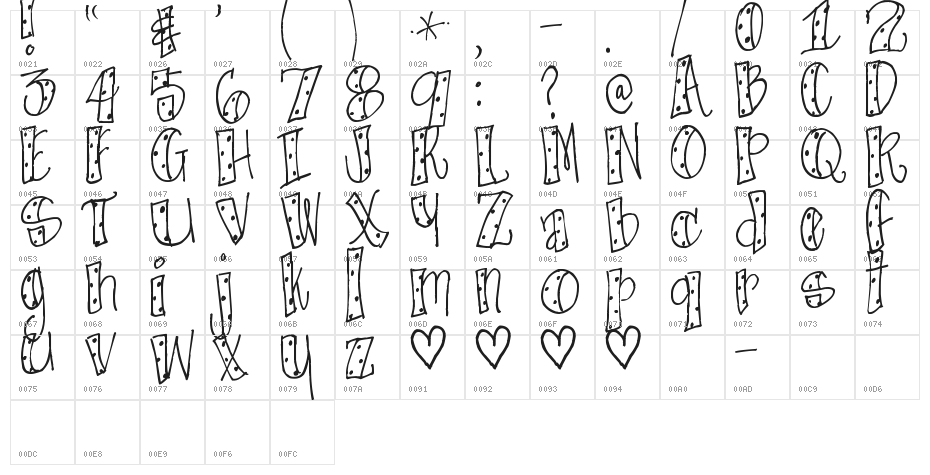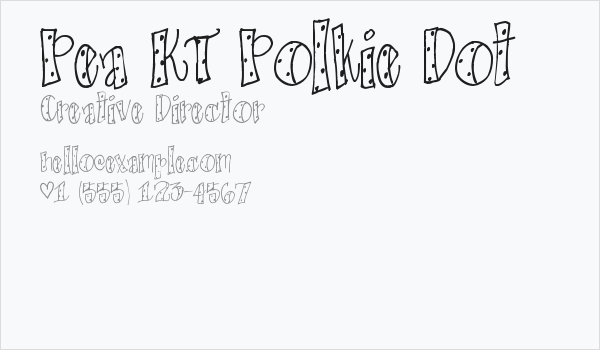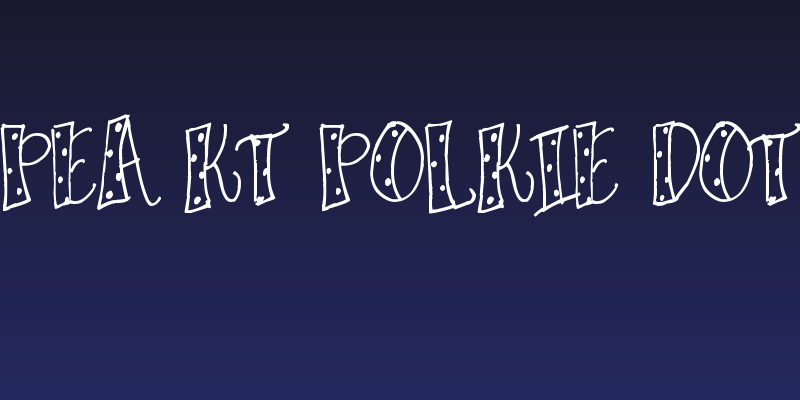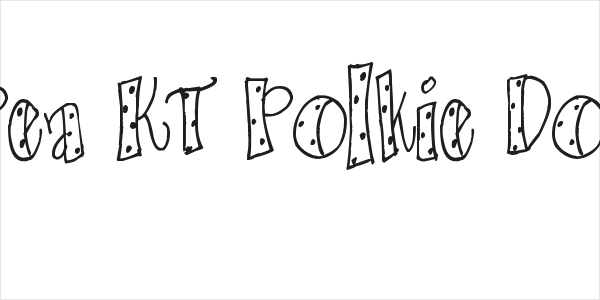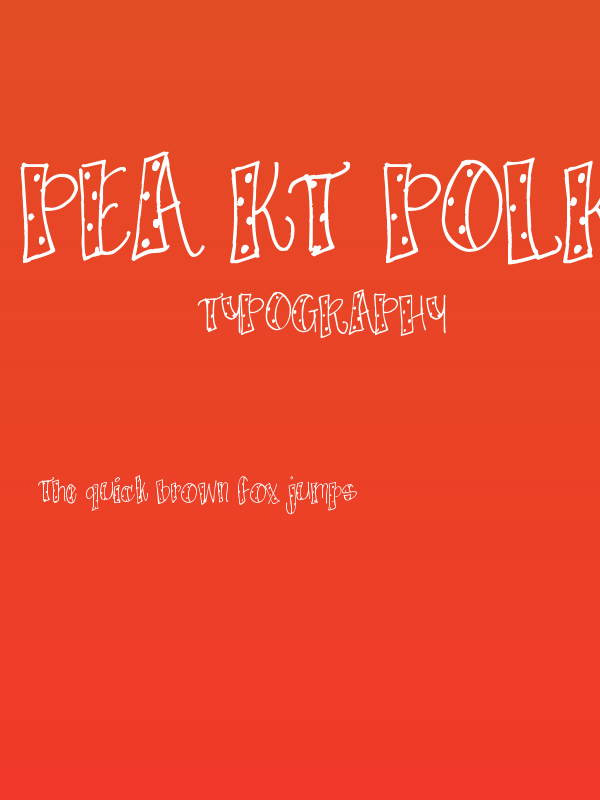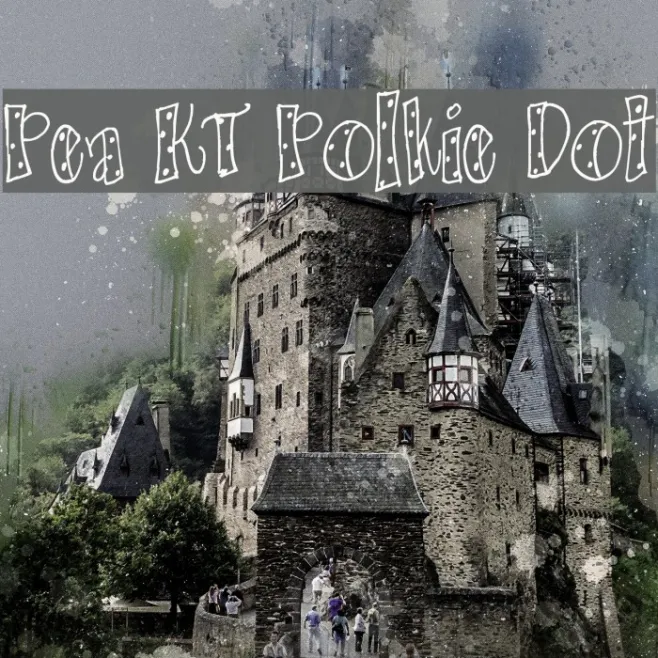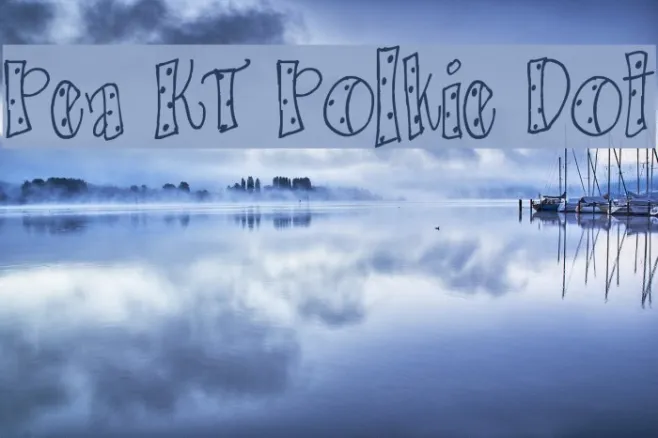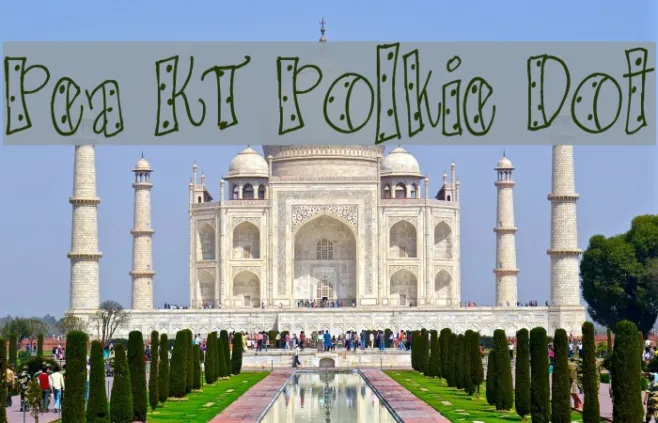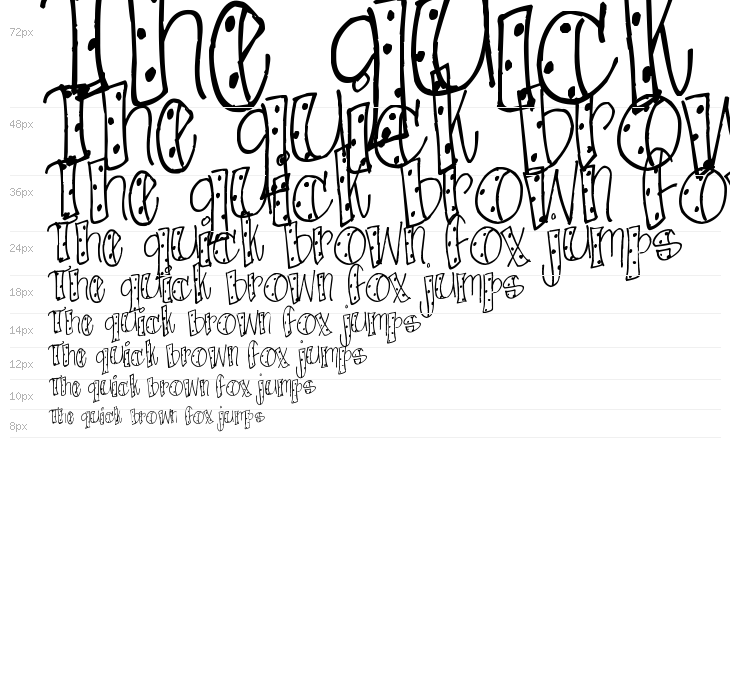
Pea KT Polkie Dot Font
Pea KT Polkie Dot Description
This playful and whimsical font features a hand-drawn style with a unique polka dot pattern embedded within each character. The letters are slightly irregular, adding to the charm and informal feel of the design. The uppercase and lowercase letters maintain a consistent style, with a quirky, artistic flair that makes them stand out. Numbers and special characters follow the same playful theme, ensuring a cohesive look across all text elements. The font's distinctive appearance makes it ideal for creative projects that require a touch of fun and personality.
| Overall Style | Whimsical |
| Proposed Projects | Ideal for children's books, greeting cards, playful branding, and creative posters. |